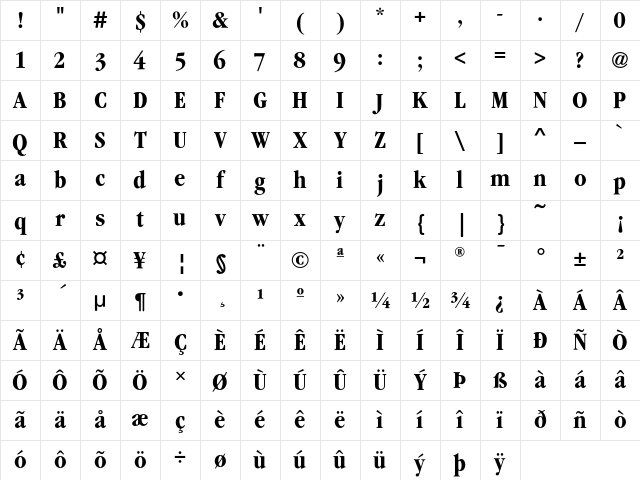
GaramondEF BoldCondens
Style: BoldCondens
GaramondEF Family
GaramondEF BoldCondens
Design Context for GaramondEF
GaramondEF is a composed and adaptable typeface that performs quietly and consistently across a wide range of design contexts. Its bold stroke weight gives it real presence on the page. Its narrow stance lets it pack a punch even in space-constrained designs.